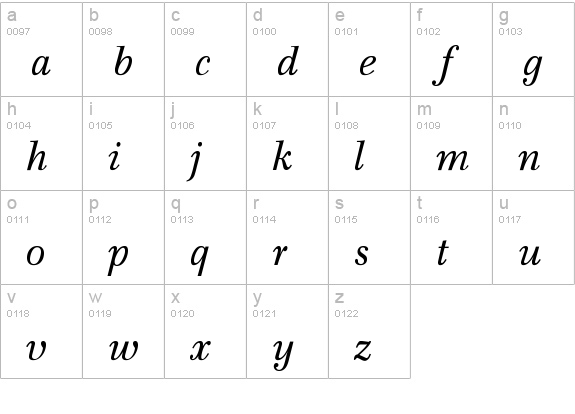
Franklin Antiqua BQ Italic Font Details
Franklin Antiqua BQ Italic is a distinctive, italic variant in the Franklin typeface family \xE2\x80\x94 well suited to design and typography projects.
Franklin Antiqua BQ Italic is a classic and elegant font that exudes sophistication and timeless charm. Its slanted, italicized design adds a touch of flair and style to any text, making it perfect for formal documents, invitations, and branding materials. This exquisite font, with its delicate serifs and graceful curves, is sure to catch the eye and leave a lasting impression. Whether you're looking to add a touch of class to your designs or simply want to stand out from the crowd, Franklin Antiqua BQ Italic is the perfect choice. Best of all, Franklin Antiqua BQ Italic is available for free download at FontsMarket.com. So why wait? Enhance your projects with this beautiful and versatile font today!